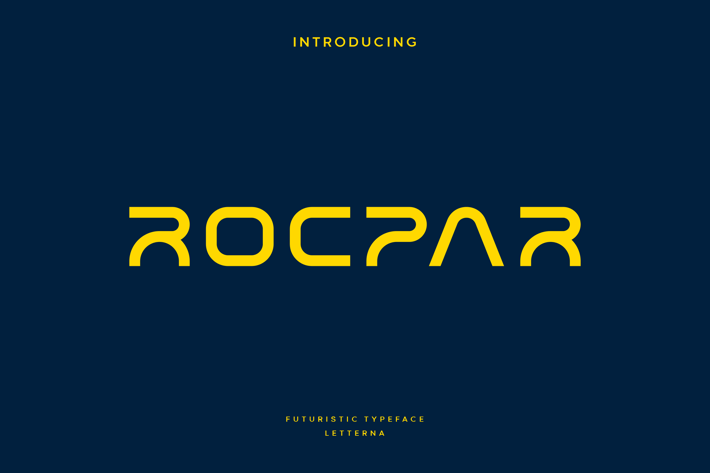
Rocpar - Modern Futuristic Typeface
Letterna
Rocpar is an unique minimal & modern display typeface that defines a class of it's own. Rocpar is dedicated for display and branding purposes, where this typeface can be a perfect choice for creating logotype, branding, headline, digital ads, marketing material for web & print as well as any type of minimal design.